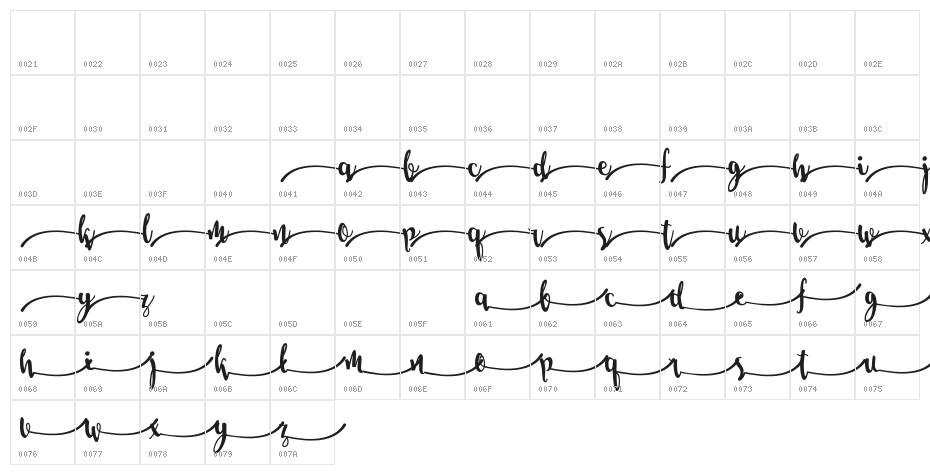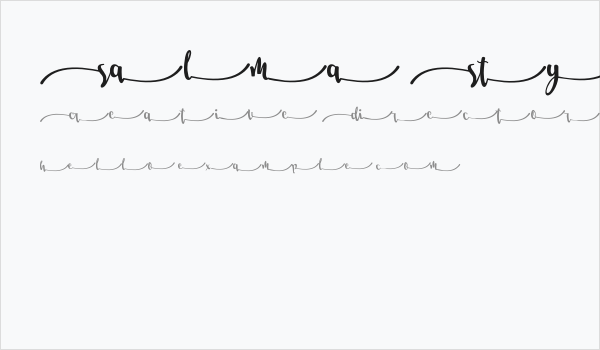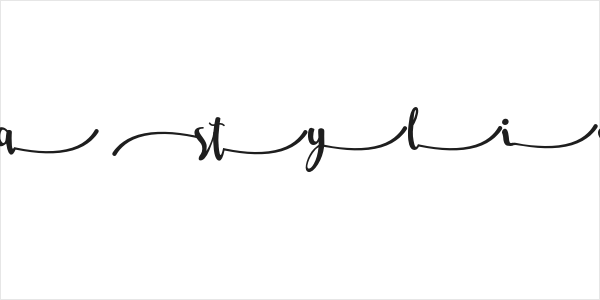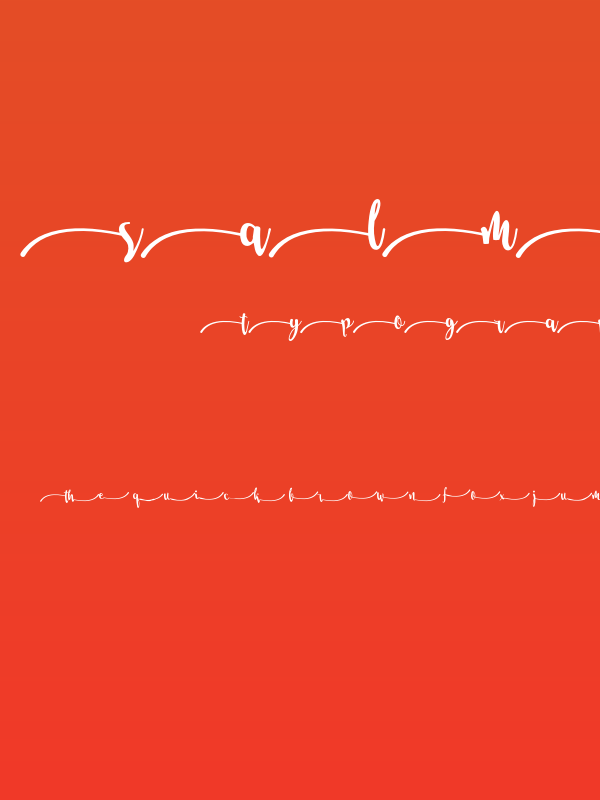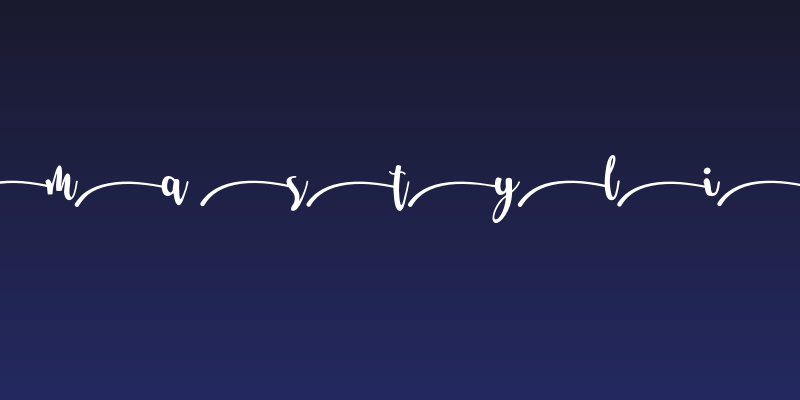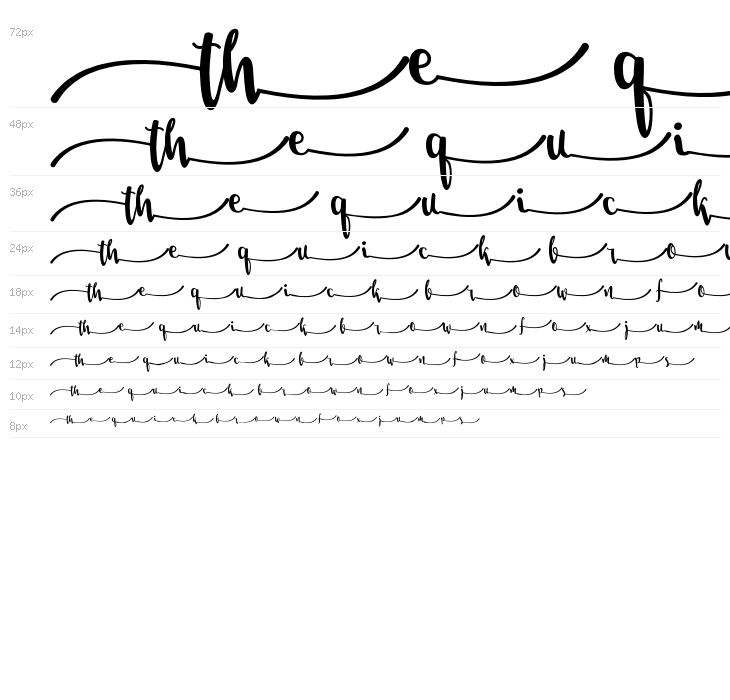
Salma Stylistic 5 Font
Salma Stylistic 5 Description
This font features an elegant and flowing script style, characterized by its delicate and intricate letterforms. Each character is connected with smooth, sweeping strokes, creating a harmonious and continuous flow. The font exudes a sense of sophistication and grace, making it ideal for formal invitations, branding, and decorative purposes. Its ornate design is both eye-catching and refined, offering a touch of luxury and class. The consistent line weight and fluid connections between letters enhance its readability while maintaining an artistic flair.
| Proposed Projects | Ideal for wedding invitations, luxury branding, greeting cards, and decorative signage. |